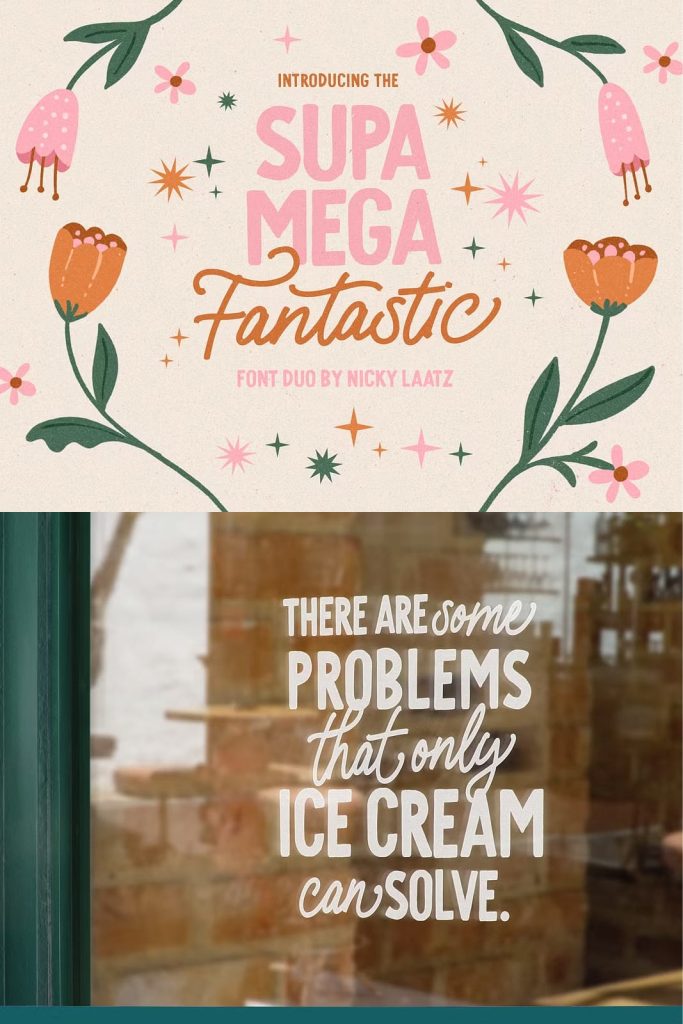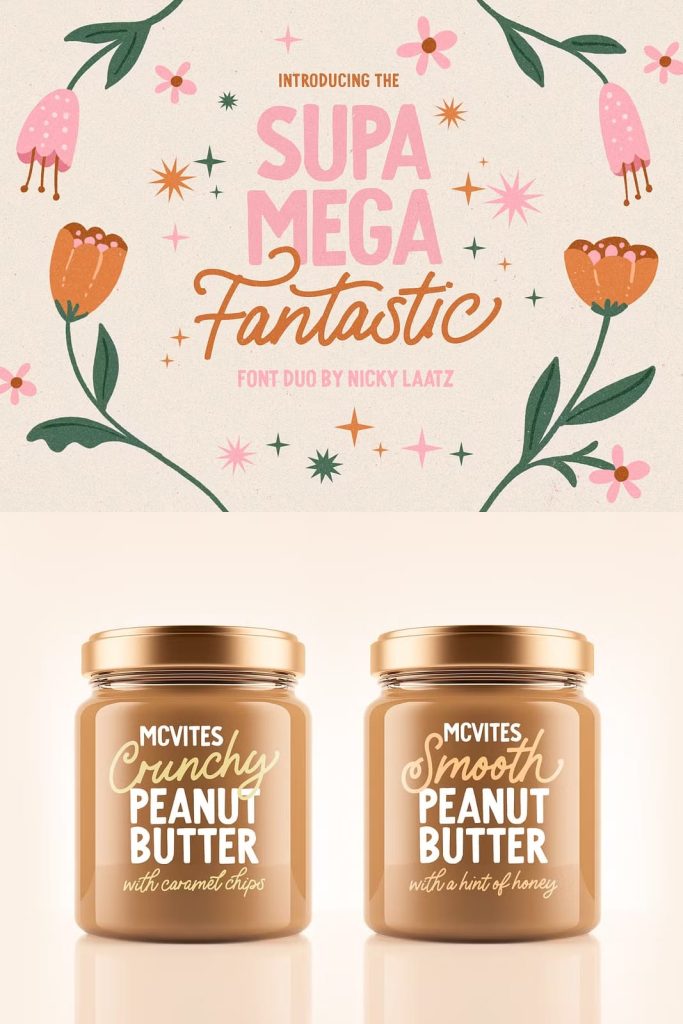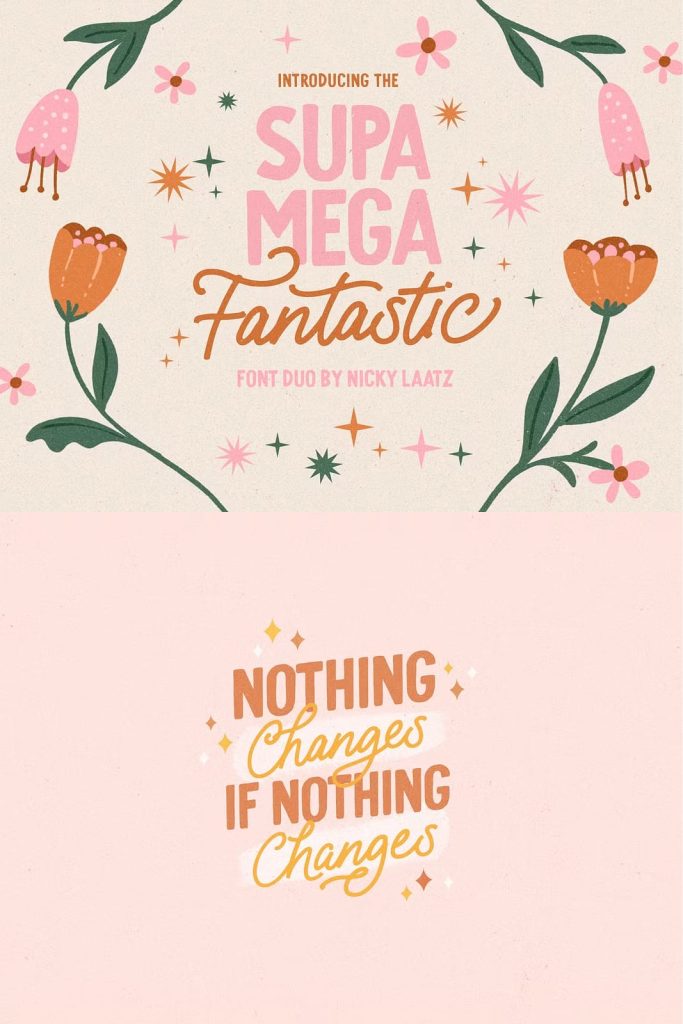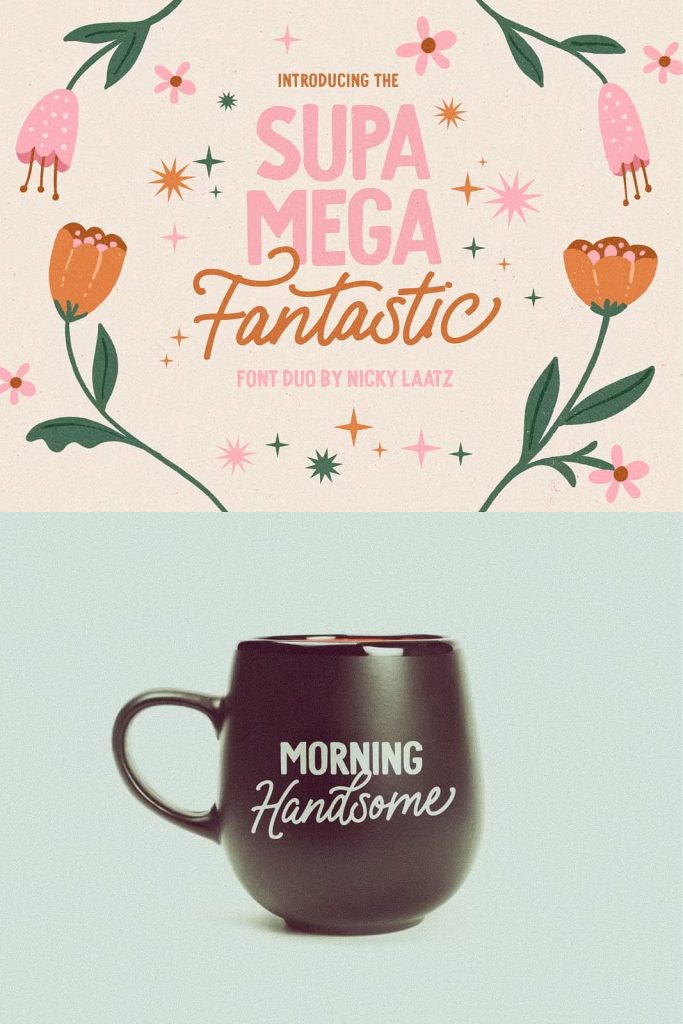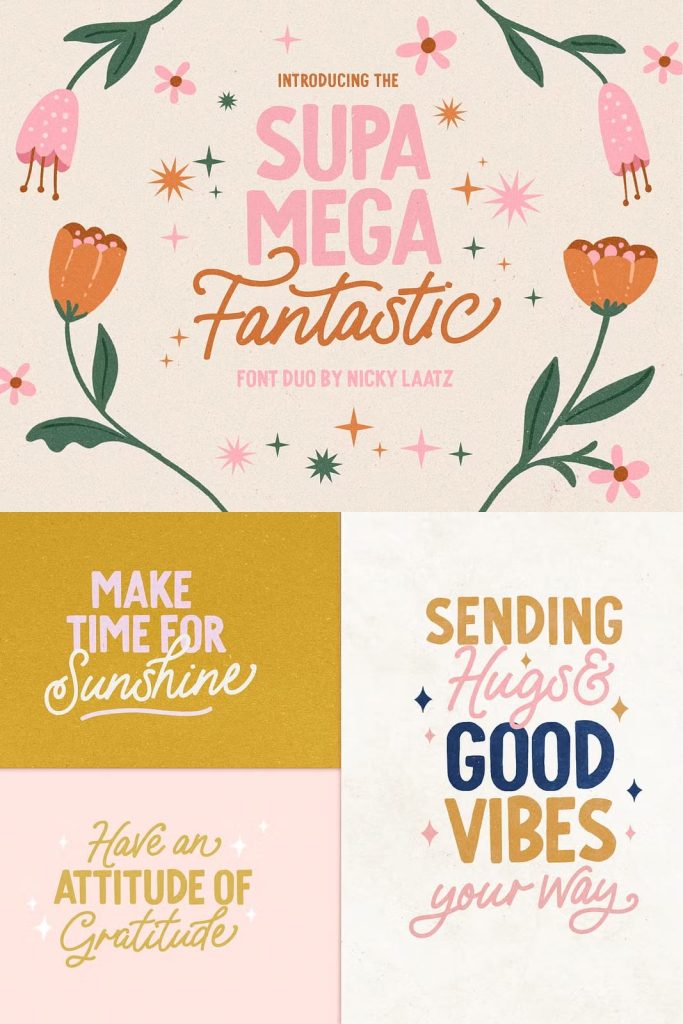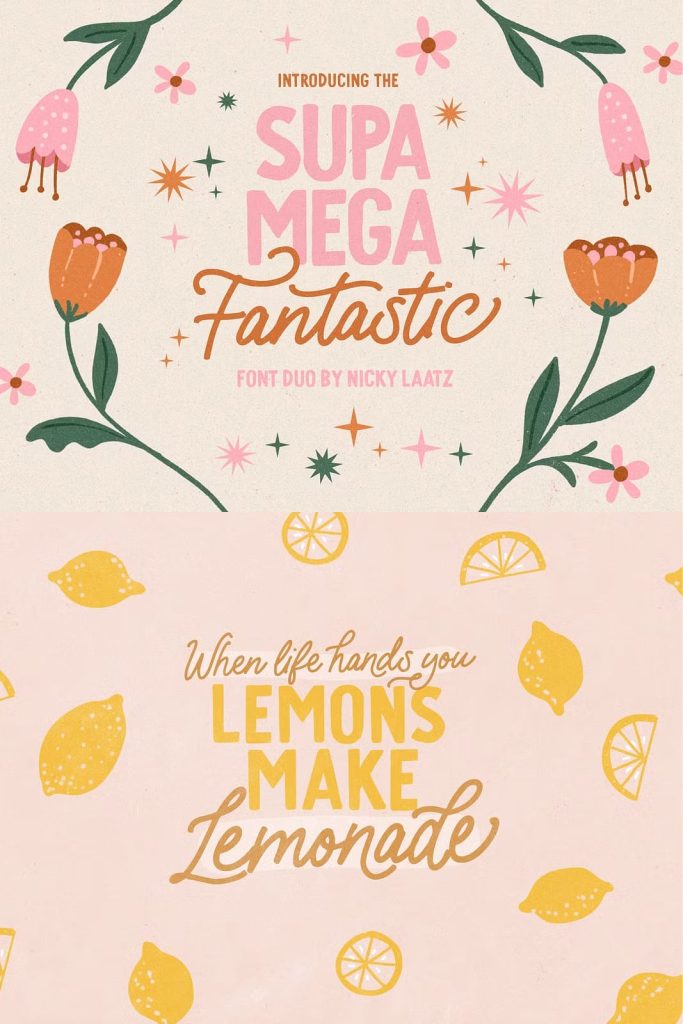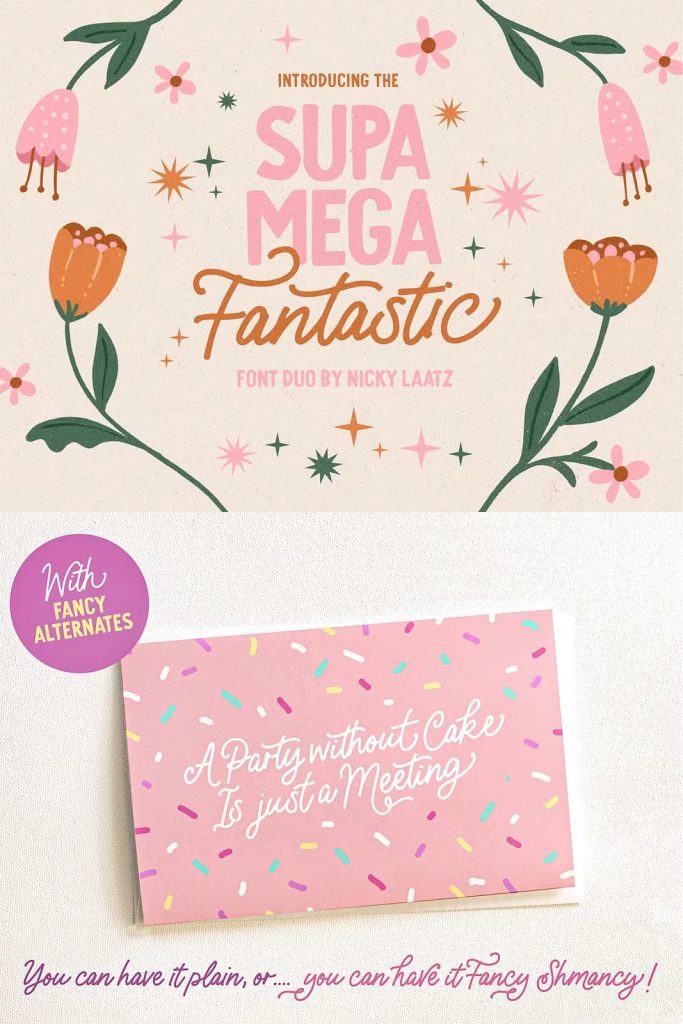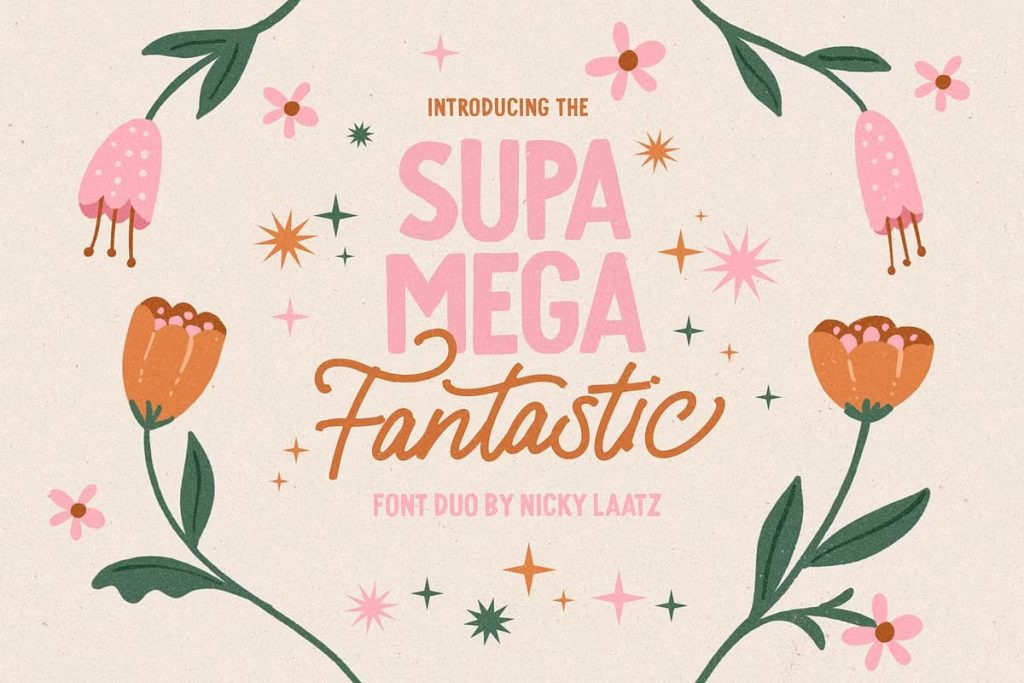
Supa Mega Fantastic Font Duo
Supa Mega Fantastic Font Duo: A Playful and Versatile Typography Pair
Supa Mega Fantastic Font Duo brings energy, creativity, and personality into your design projects. This unique pairing combines two distinct styles into one cohesive package, giving designers the flexibility to create bold and expressive visuals. With its handcrafted charm and strong visual presence, this font duo helps you produce designs that feel lively, engaging, and memorable.
A Hand-Lettered Style with Authentic Character
This font duo captures the essence of hand-lettered sign-painting. It reflects the organic flow and human touch that traditional lettering artists bring to their craft. Each stroke feels intentional, yet natural, allowing your designs to stand out with authenticity.
The script font features smooth, flowing lines that mimic real handwriting. It creates a sense of movement and warmth, making it ideal for projects that need a personal and approachable tone. Instead of looking rigid or mechanical, the script delivers a relaxed and friendly feel that connects with audiences instantly.
Playful Monoline Script for Creative Expression
The monoline script in Supa Mega Fantastic Font Duo uses consistent line thickness to maintain a clean and modern appearance. This design choice keeps the script readable while preserving its playful character. You can use it for logos, quotes, social media graphics, or packaging designs that need a touch of personality.
Because of its smooth curves and balanced spacing, the script works well in both large headlines and smaller text elements. It allows you to experiment with creative layouts while keeping the overall design cohesive and visually appealing.
Chunky All Caps Sans Serif for Bold Impact
Complementing the script is a chunky all caps sans serif font that delivers strength and clarity. Its bold structure creates a strong visual contrast when paired with the script, helping important elements stand out clearly. This balance between soft and bold styles makes the duo highly versatile.
The sans serif font uses thick strokes and simple shapes to ensure maximum readability. It works perfectly for titles, headlines, and key messages that need to grab attention quickly. The all caps design reinforces its impact, making it ideal for branding and promotional materials.
Perfect Balance Between Fun and Structure
The combination of a playful script and a solid sans serif creates a dynamic visual relationship. The script adds personality and movement, while the sans serif provides stability and structure. Together, they form a balanced system that supports a wide range of design styles.
Designers can use this pairing to create contrast, hierarchy, and emphasis within their layouts. For example, you can use the script for decorative elements and the sans serif for clear messaging. This approach ensures that your design remains both attractive and functional.
Ideal for Branding and Creative Projects
Supa Mega Fantastic Font Duo adapts easily to different creative needs. It works well for branding, logos, packaging, posters, social media content, and more. Its playful nature makes it especially suitable for lifestyle brands, food businesses, creative agencies, and personal projects.
The font duo helps you establish a unique visual identity. It allows you to communicate both professionalism and creativity without sacrificing clarity. Whether you want to create something bold or something fun, this font duo gives you the tools to do both effectively.
Enhance Your Designs with Versatility
Versatility is one of the strongest advantages of Supa Mega Fantastic Font Duo. You can mix and match the two styles to create different moods and compositions. Use the script for expressive headlines or decorative accents, and rely on the sans serif for structure and readability.
This flexibility makes the font duo suitable for both digital and print applications. It performs well across different sizes and formats, ensuring that your designs remain consistent and professional.
Why Choose Supa Mega Fantastic Font Duo?
Supa Mega Fantastic Font Duo gives you the ability to create designs that feel energetic, modern, and approachable. Its combination of hand-lettered charm and bold simplicity allows you to communicate ideas effectively while maintaining a strong visual identity.
By choosing this font duo, you gain a powerful design tool that supports creativity and clarity. It helps you craft visuals that attract attention, engage audiences, and leave a lasting impression. Whether you work on branding or personal projects, this font duo delivers both style and performance.